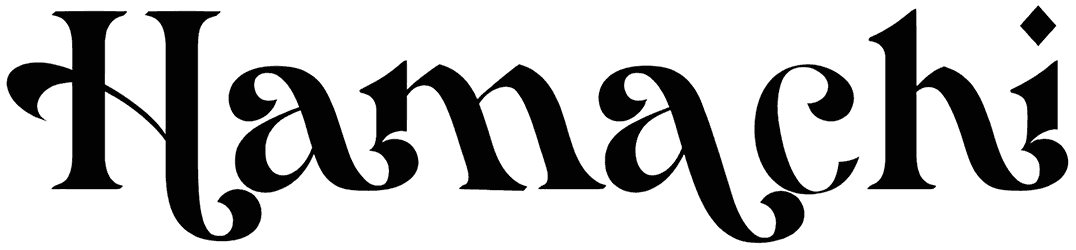
Hamachi Font
It is worth peeking into the amazing points of this Hamachi font; the clean, romantic, cursive end design makes it an outstanding pick to propose a satisfactory writing effect.
Inspired by the vibes of a fashion magazine font, considering classical, minimalist, and amiable romantic emotions can be executed in topping many posters, cards, branding, fashion magazines, and anything else. RB pledges you to get an agreeable viewing!